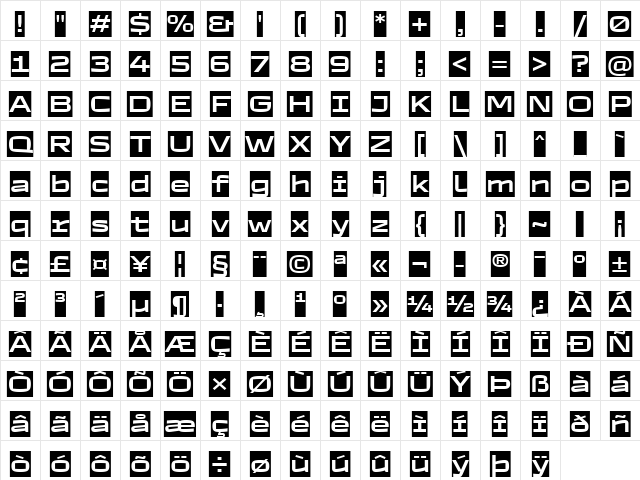
Complete TT Autonomous Reverse Trl Md glyph index. Displaying only characters natively supported by TT Autonomous Reverse Trl Md font.
TT Autonomous Reverse Trl is a composed and adaptable typeface that performs quietly and consistently across a wide range of design contexts.